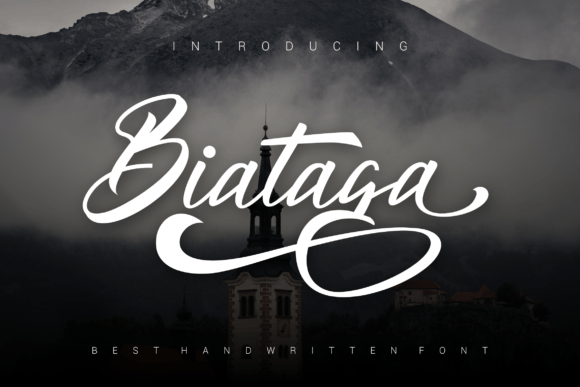
Have you ever been working on a project and suddenly felt the urge to add a dash of personality to it? Maybe it’s a logo, a greeting card, or a fashion lookbook – whatever it is, you know that it needs something special to make it stand out. That’s where the magic of typography comes in.
Enter the Biataga Font, a sweet and cursive handwritten font that will add a joyful and romantic touch to each of your projects. With its elegant yet casual feel, this font is perfect for branding, logo design, wedding projects, and more. Whether you’re a seasoned designer or just starting out, the Biataga Font is an invaluable addition to your toolkit.
Biataga Font Key Features
- Unique Characteristics: Biataga Font features a unique blend of modern and traditional design elements, with intricate details and subtle nuances that set it apart from other fonts.
Biataga Font Review
Overall, I was quite impressed with the Biataga Font. The designer has done a great job in creating a unique and elegant typeface that’s perfect for a variety of projects. Here are some of its standout features: ✨
- Elegant Script: The font’s script style is truly beautiful, making it ideal for wedding invitations, greeting cards, and other special occasions.
- High-Quality Renditions: The font is available in various weights, from Light to Bold, ensuring that you have the right level of thickness to suit your design needs.
- Good Readability: Despite its script style, the font is quite legible, making it suitable for body text and other large blocks of text.
- Font Size Limitations: At smaller font sizes, the font can become difficult to read due to its script style.
- Limited Language Support: The font may not be suitable for languages that require more complex typography, such as languages with non-Latin scripts.
Overall, I’d give the Biataga Font 4 out of 5 stars. While it has some limitations, its unique design and high-quality renditions make it a great addition to any designer’s toolkit. With a bit of caution and planning, you can use this font to create truly stunning designs that will stand out from the crowd.
Biataga Font: A Practical Application Guide
Getting Started with Biataga Font
Getting the Most Out of Biataga Font
To get the most out of Biataga font, experiment with different font sizes, colors, and combinations. You can also use the font in conjunction with other design elements to create a unique look.
Common Use Cases for Biataga Font
Biataga font is perfect for:
- Business cards and brochures
- Wedding websites and social media graphics
- Other creative and elegant designs